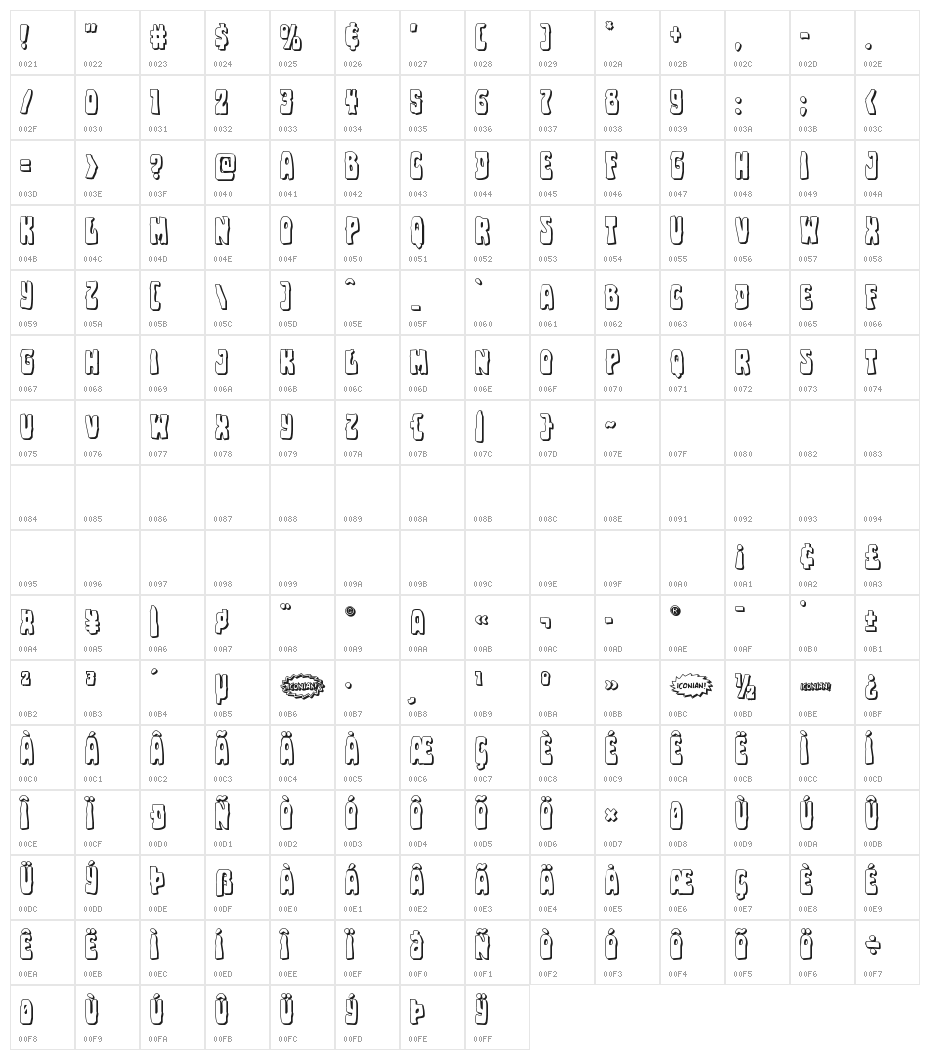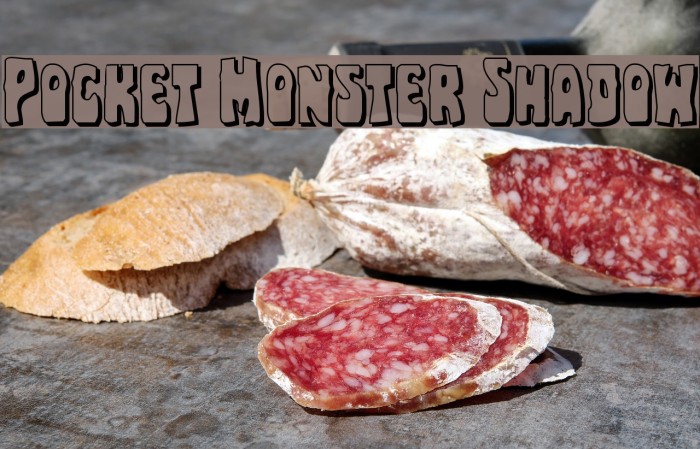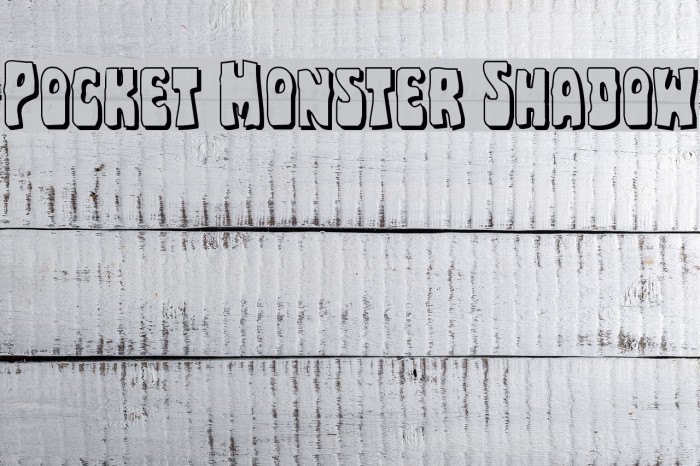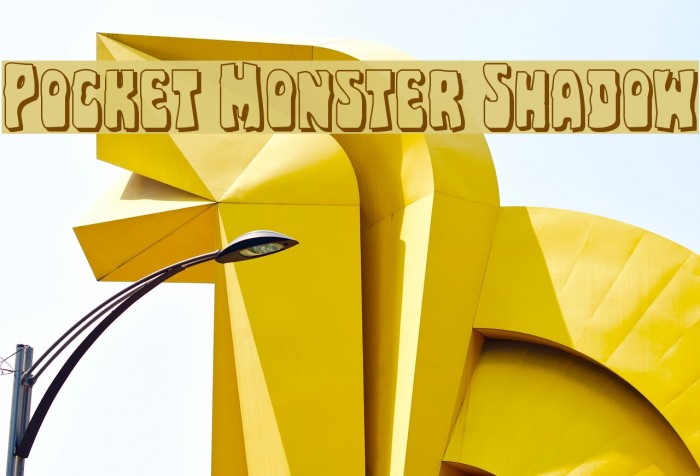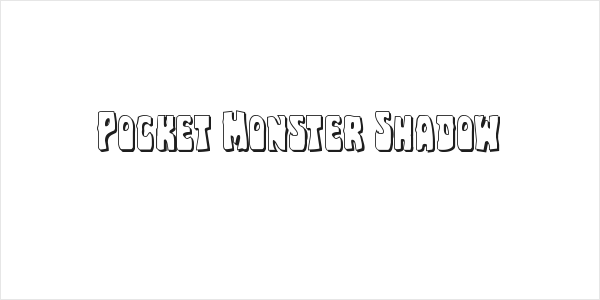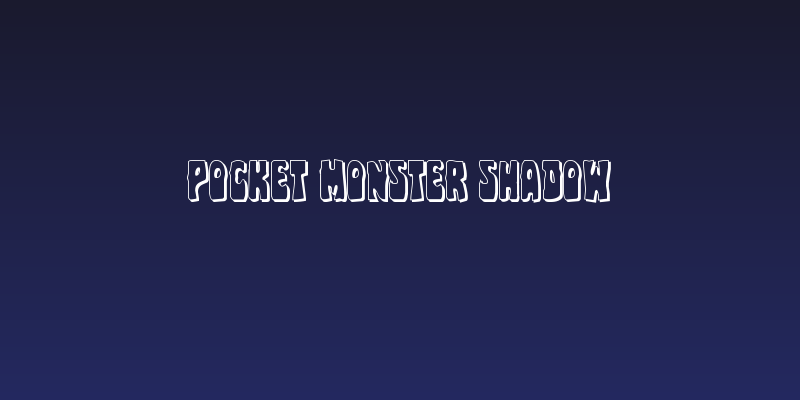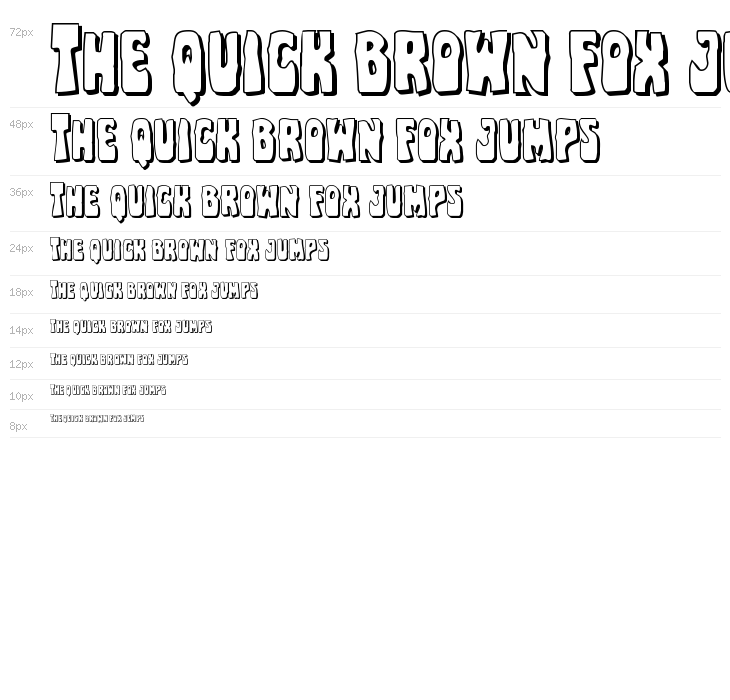
Pocket Monster Shadow Font
Pocket Monster Shadow Description
This font features bold, playful characters with a shadow effect that gives it a three-dimensional appearance. The letters are thick and rounded, with a cartoonish style that adds a sense of fun and whimsy. The shadowing is consistent across all characters, enhancing the depth and making each letter stand out. The numbers and special characters follow the same design principles, ensuring a cohesive look throughout. This font is ideal for projects that require a lively and engaging typeface, such as children's books, comic strips, or playful branding.
| Overall Style | Playful, Cartoonish |
| Proposed Projects | Ideal for children's books, comic strips, playful branding, and any project needing a lively typeface. |